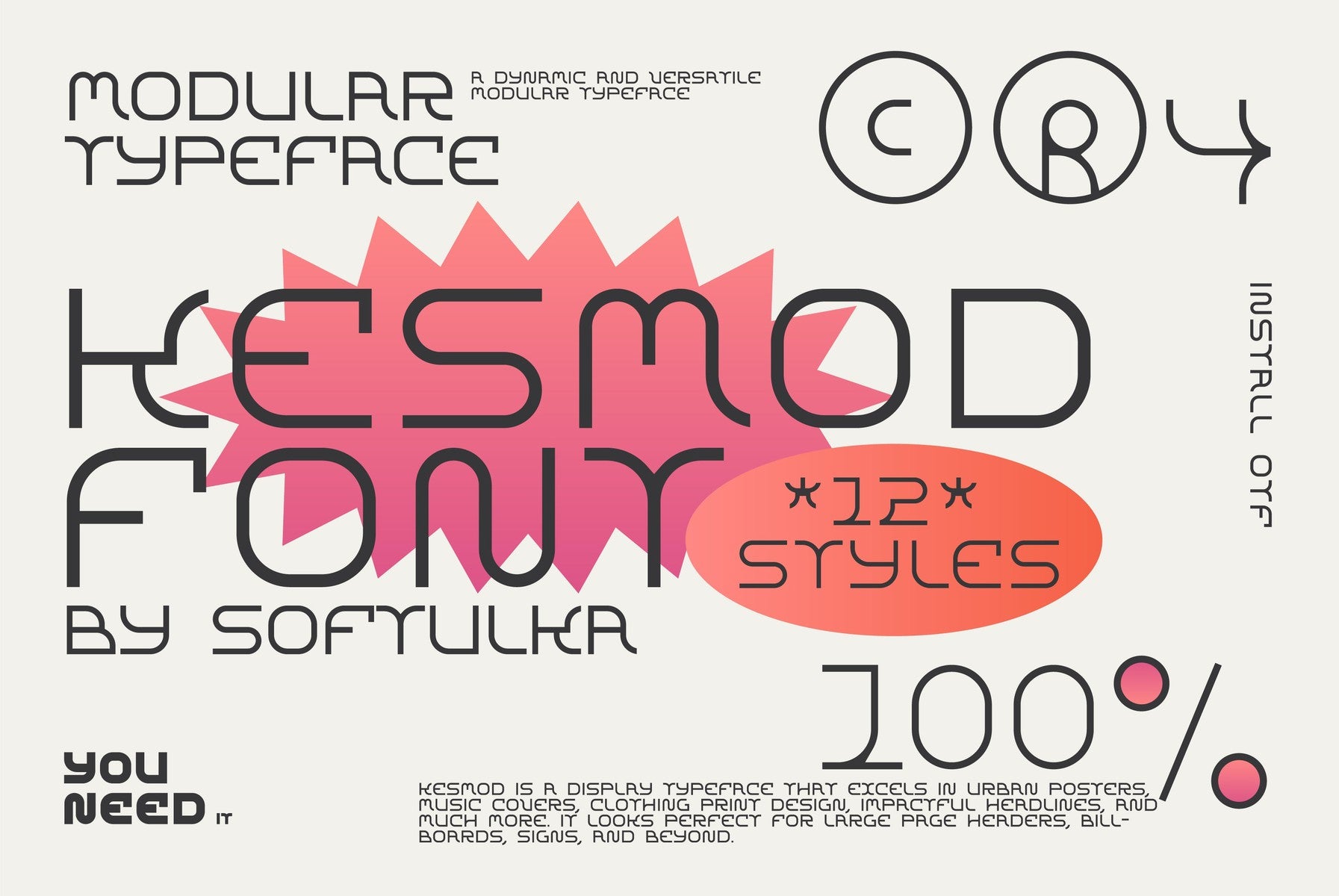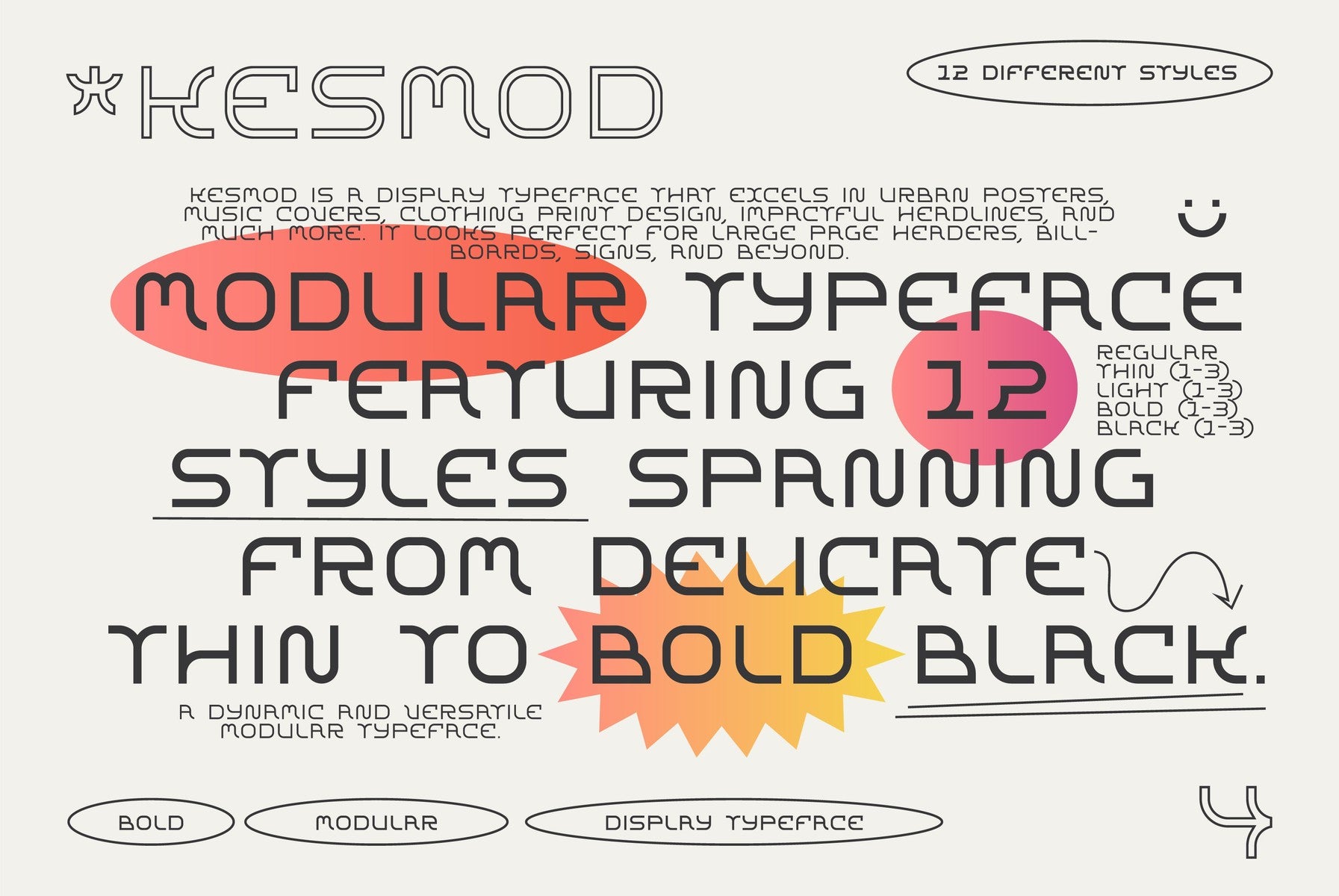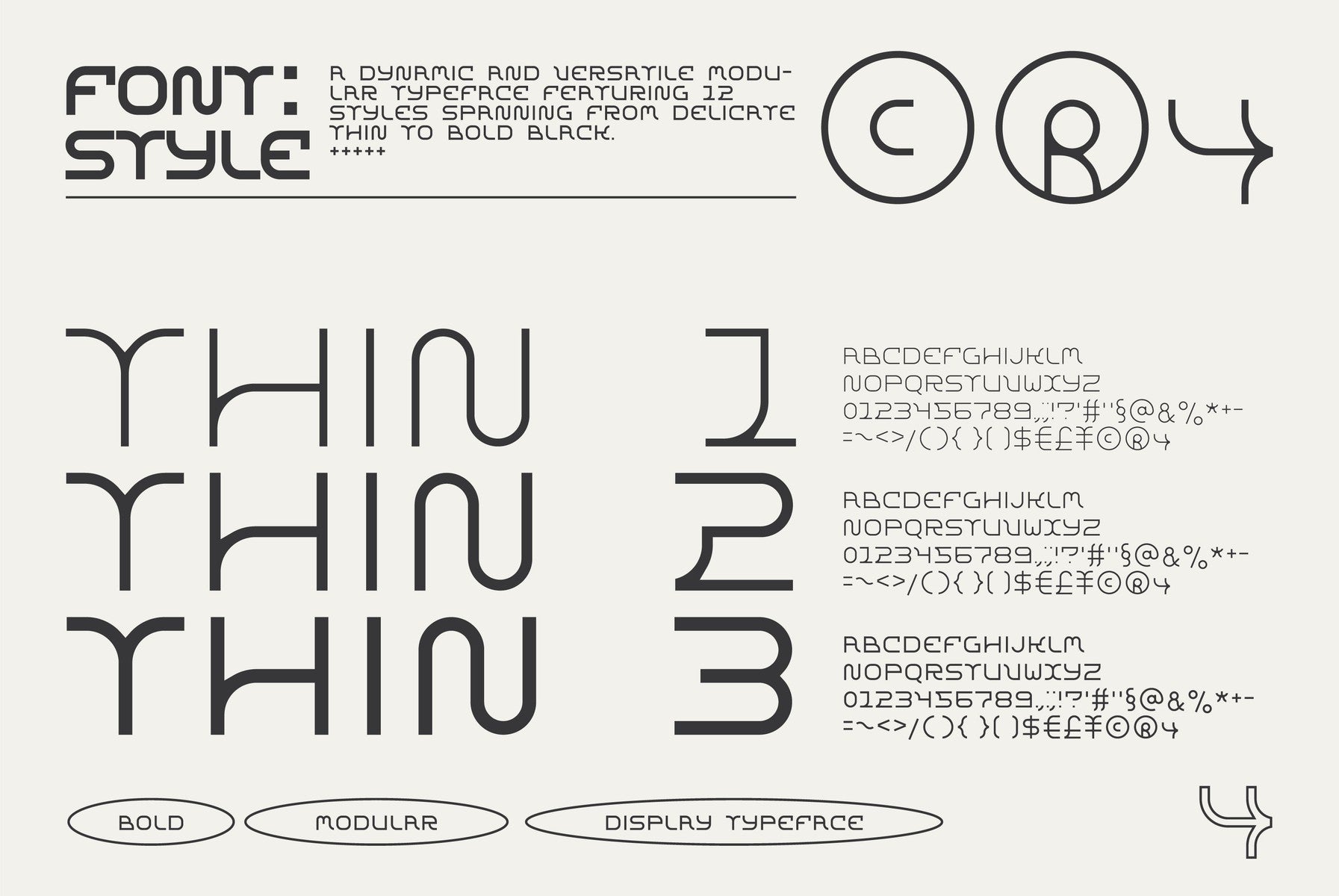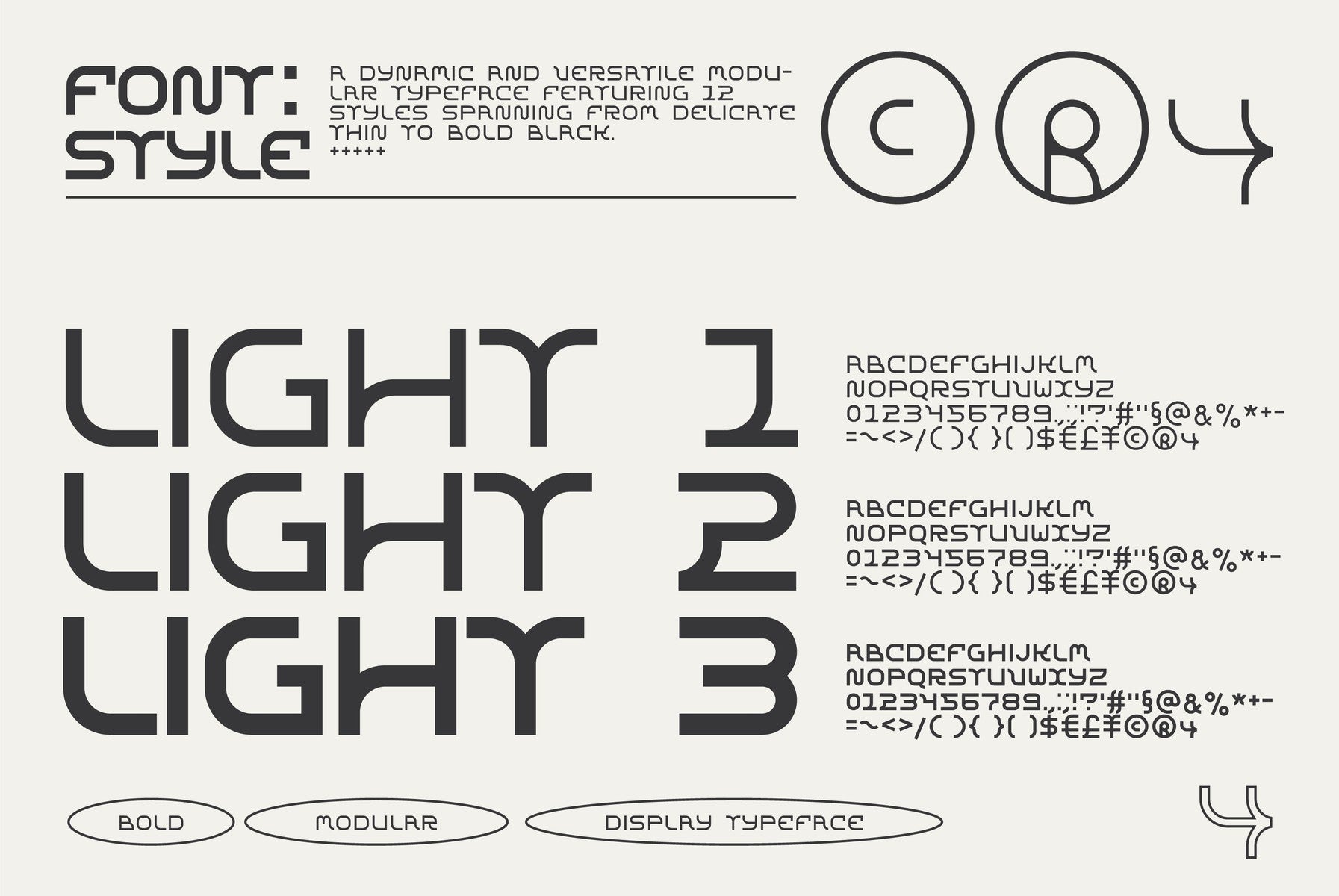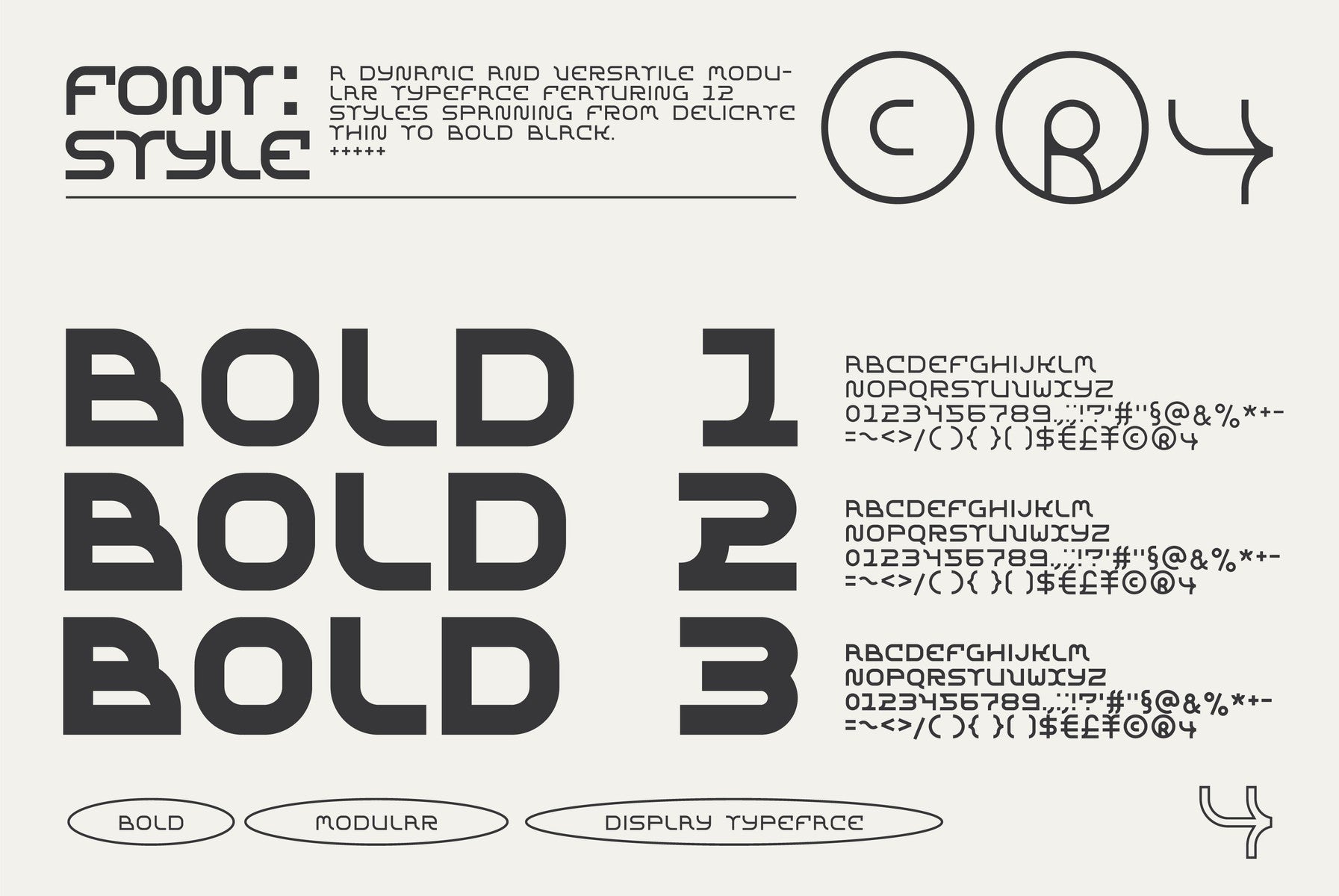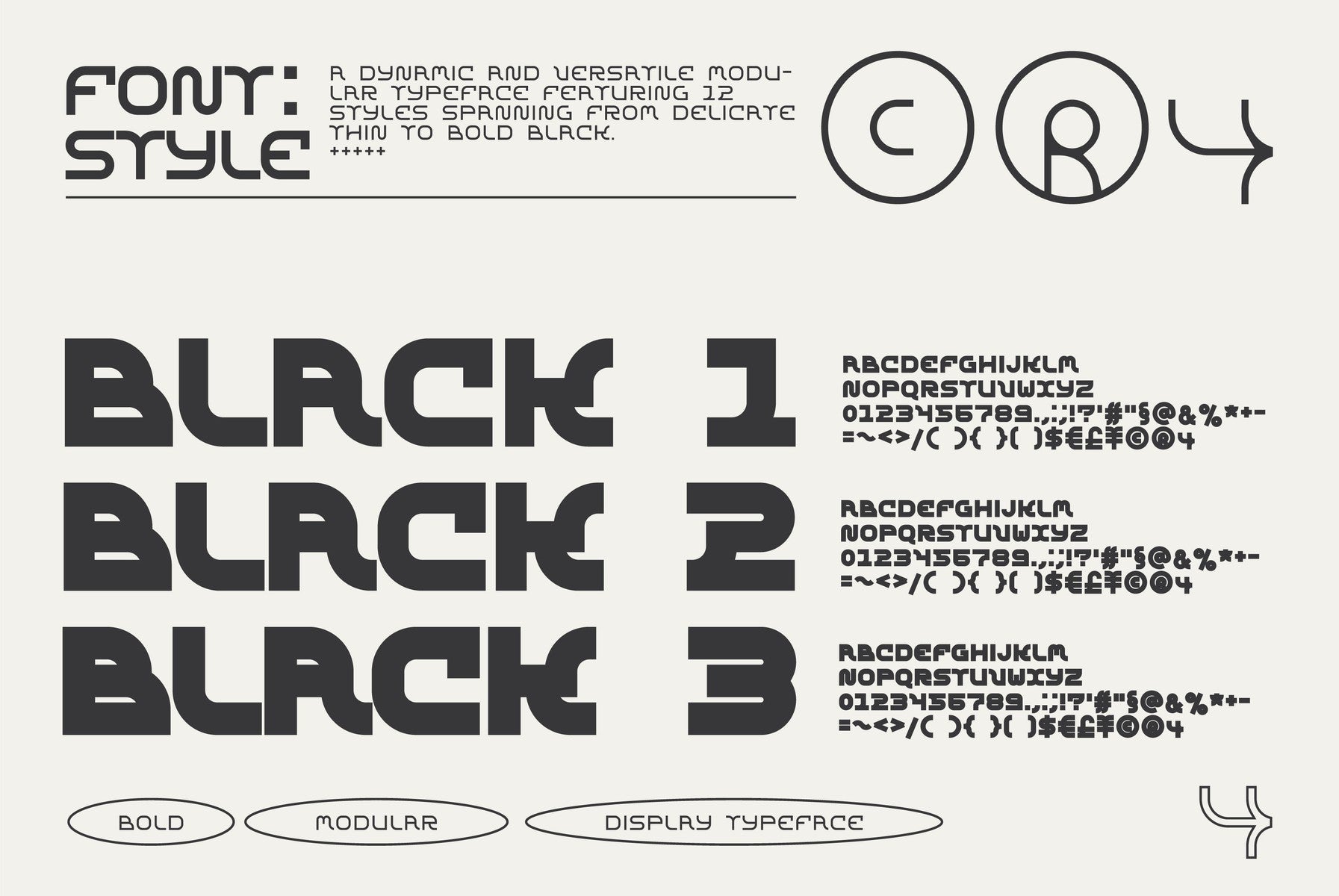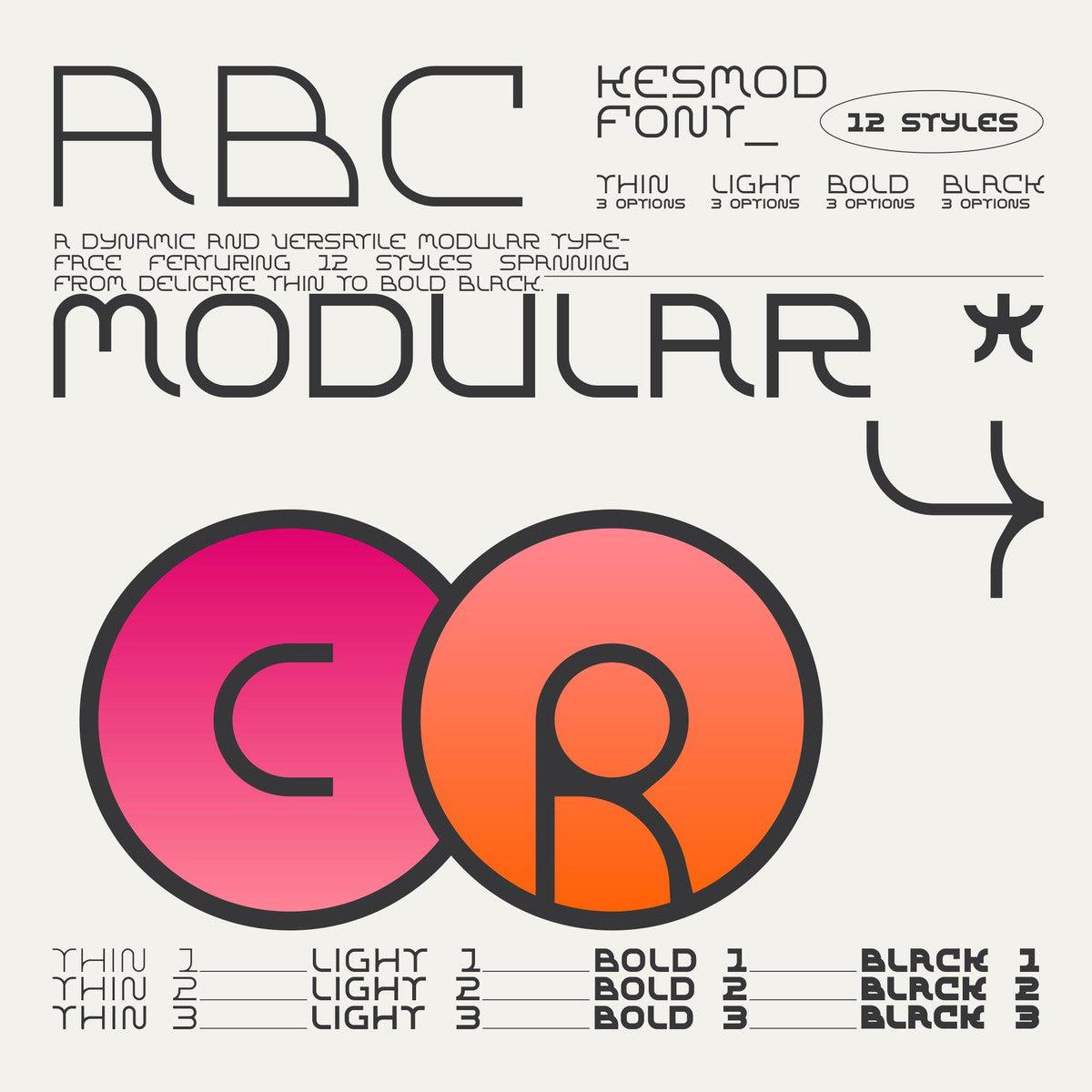
Kesmod Font - 12 styles
The Kesmod Font is a clean, modular Sans Serif typeface that includes 12 distinct styles, ranging from thin to bold black. The product package comes with 12+1 OTF, TTF, and WOFF files, as well as a PDF preview, and features uppercase alphabet, numbers, punctuation, and common additional glyphs.
Ideal for modern experimental typography and urban graphic design. Perfect for posters, music covers, clothing prints, and impactful headlines, ensuring a bold and versatile aesthetic across various creative projects.